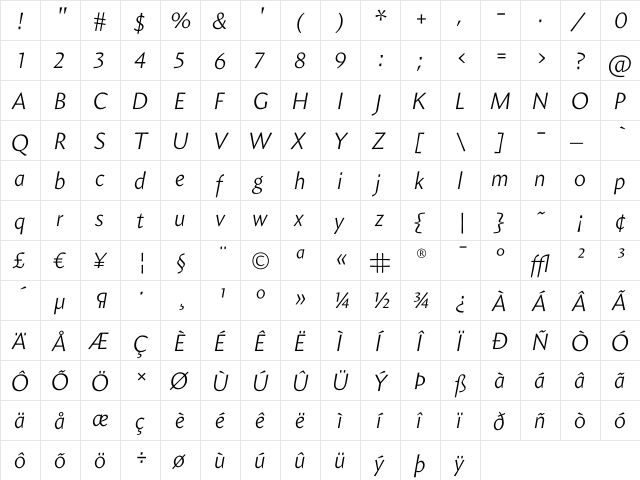
Amira Light Italic
Design Context for Amira Typeface
Amira is a composed and adaptable typeface that performs quietly and consistently across a wide range of design contexts. The slanted form adds forward momentum and visual energy. The delicate stroke weight brings airiness and refinement to layouts.
Pro Tip: Use Amira for emphasis, pull quotes, and subheadings where its slanted energy can add rhythm to the layout.